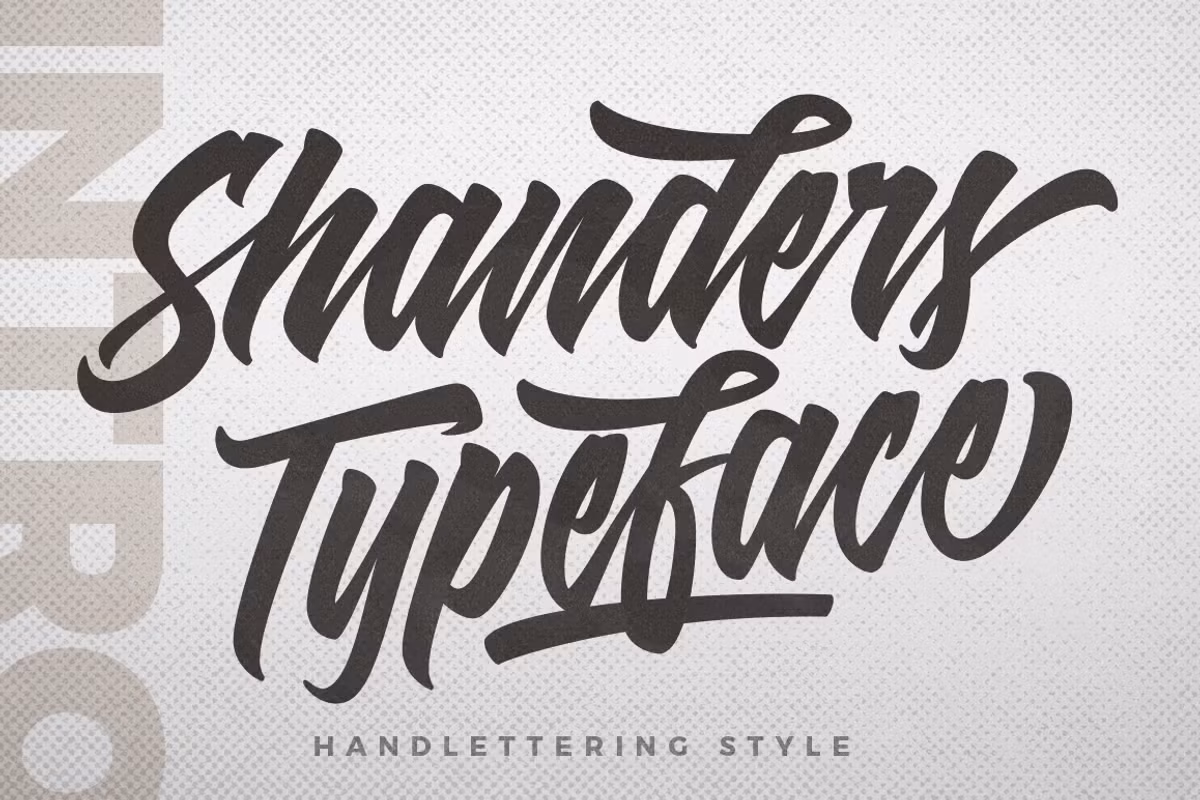
Introducing a font that speaks volumes with style and flair — Shanders Font Free Download is your go-to typeface for bold branding and high-impact visuals. With its modern curves and sleek letterforms, this font strikes the perfect balance between elegance and confidence.
Shanders is ideal for logos, fashion magazines, product packaging, social media graphics, and personal branding. Its distinct character gives your designs a voice that’s both memorable and powerful. The font includes uppercase and lowercase letters, numerals, punctuation marks, and multilingual support to suit a wide range of creative needs.
Don’t settle for ordinary. Let Shanders elevate your typography and give your work that premium, designer-quality finish. Download it today and watch your ideas shine with every letter!